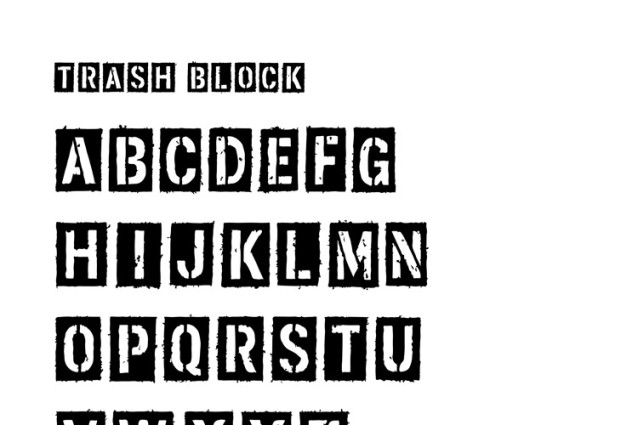
AMD Trash Block Font
AMD Trash Block Font is probably bold and striking, with characters formed by negative space cut out in geometric shapes. Stencil fonts typically have uniform stroke widths to maintain readability and consistency, while the negative space creates the illusion of letters. Depending on the style, your font could be minimalistic, featuring clean lines and sharp edges, or it might have decorative elements adding flair to each character. Stencil fonts are often associated with industrial or military aesthetics but can be versatile and adaptable to various design purposes.